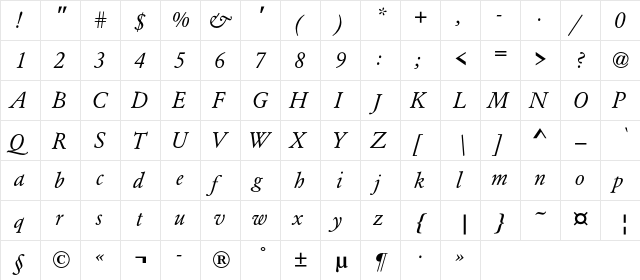
AZGaramondC Italic Font Preview
AZGaramondC Italic
Design Context for AZGaramondC Typeface
AZGaramondC offers clean, dependable letterforms without strong stylistic allegiance, making it a practical choice for designers who need flexibility. The slanted form adds forward momentum and visual energy.
Pro Tip: Use AZGaramondC for emphasis, pull quotes, and subheadings where its slanted energy can add rhythm to the layout.